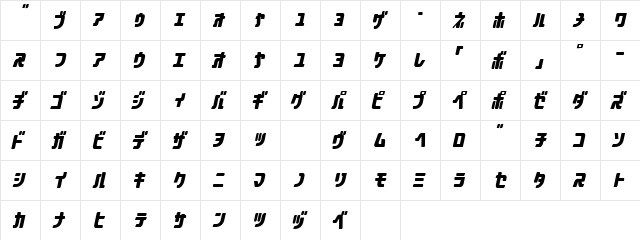
aquasky 2.0KAT Italic
Design Context for aquasky 2.0KAT Typeface
aquasky 2.0KAT offers clean, dependable letterforms without strong stylistic allegiance, making it a practical choice for designers who need flexibility. The slanted form adds forward momentum and visual energy.